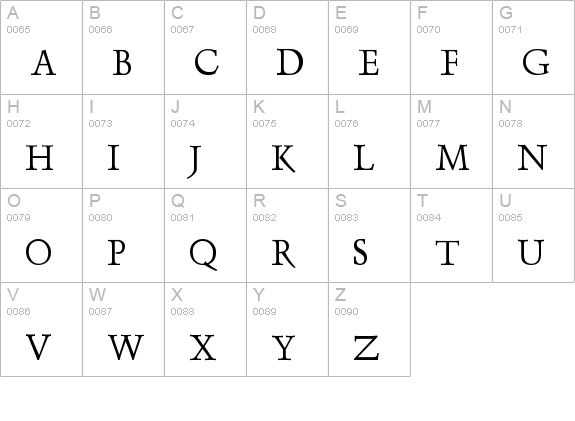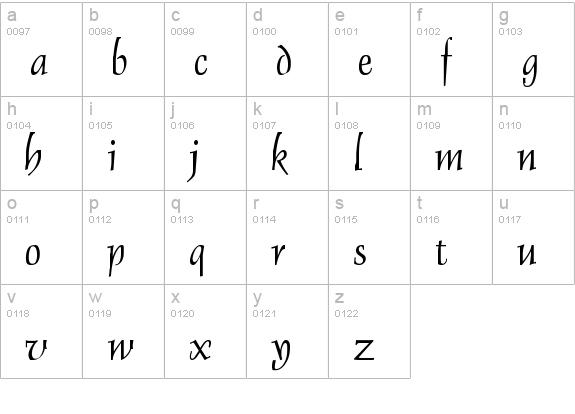
Dauphin-Normal is the standard, neutral variant in the Dauphin typeface family \xE2\x80\x94 well suited to general body text, paragraphs, and standard typographic work.
Dauphin-Normal font is a stylish and elegant typeface that exudes sophistication and charm. Its beautifully crafted letterforms are perfect for adding a touch of class to any design project. With its clean lines and classic appeal, Dauphin-Normal font is a versatile choice for a wide range of applications, from branding to editorial design. Best of all, Dauphin-Normal font is completely free to download at FontsMarket.com. This means you can add this exquisite typeface to your collection without having to spend a dime. Don't miss out on the opportunity to enhance your projects with the timeless beauty of Dauphin-Normal font – download it today and elevate your designs to new heights!